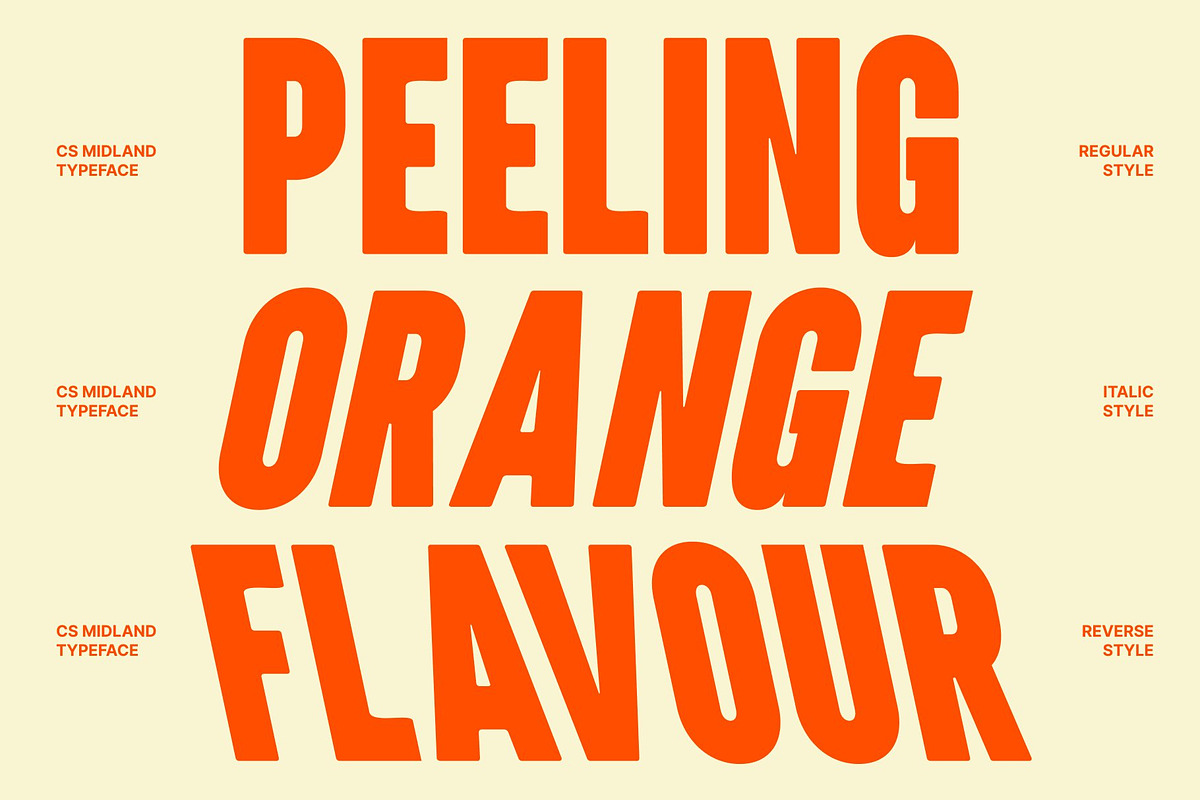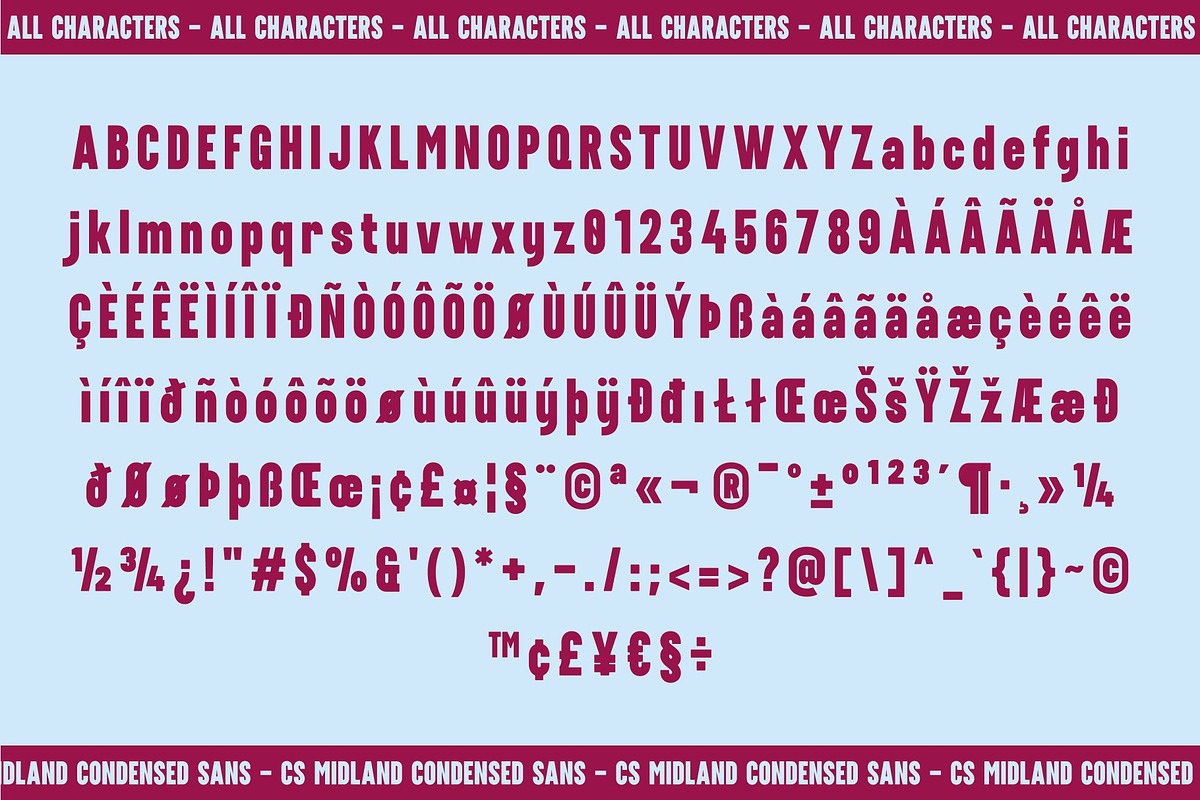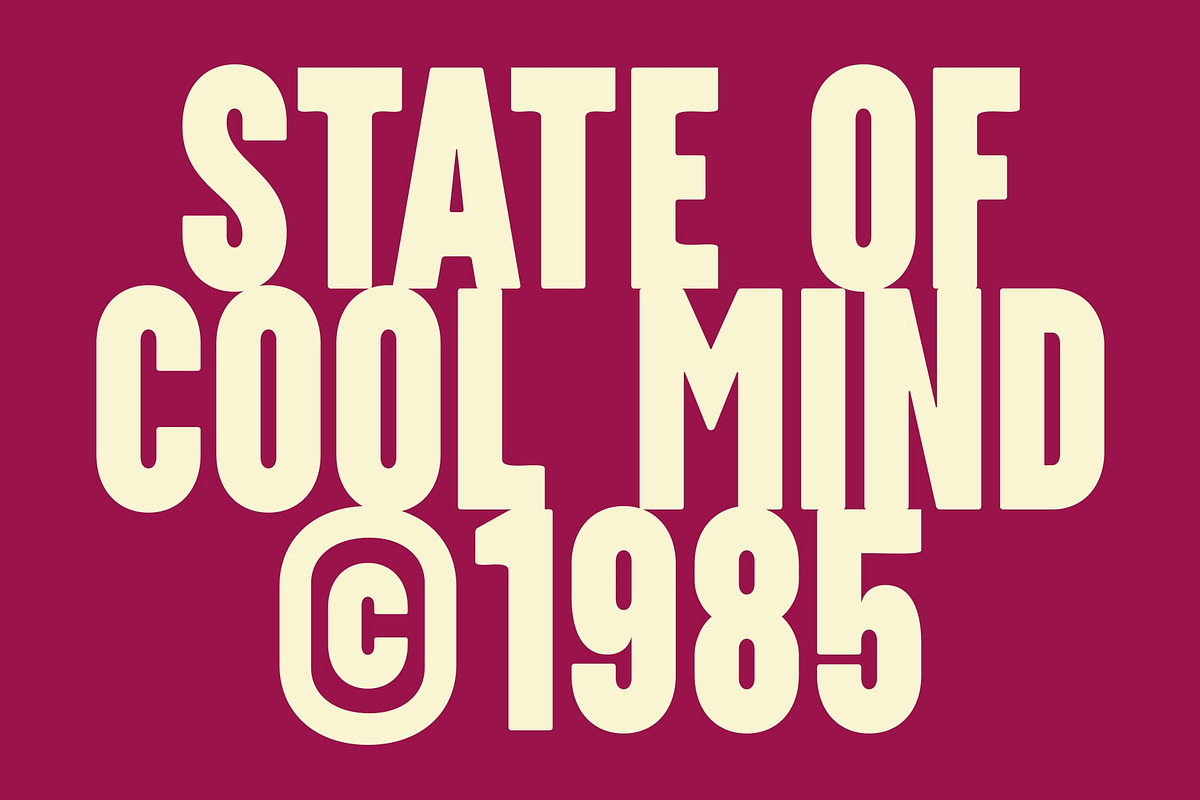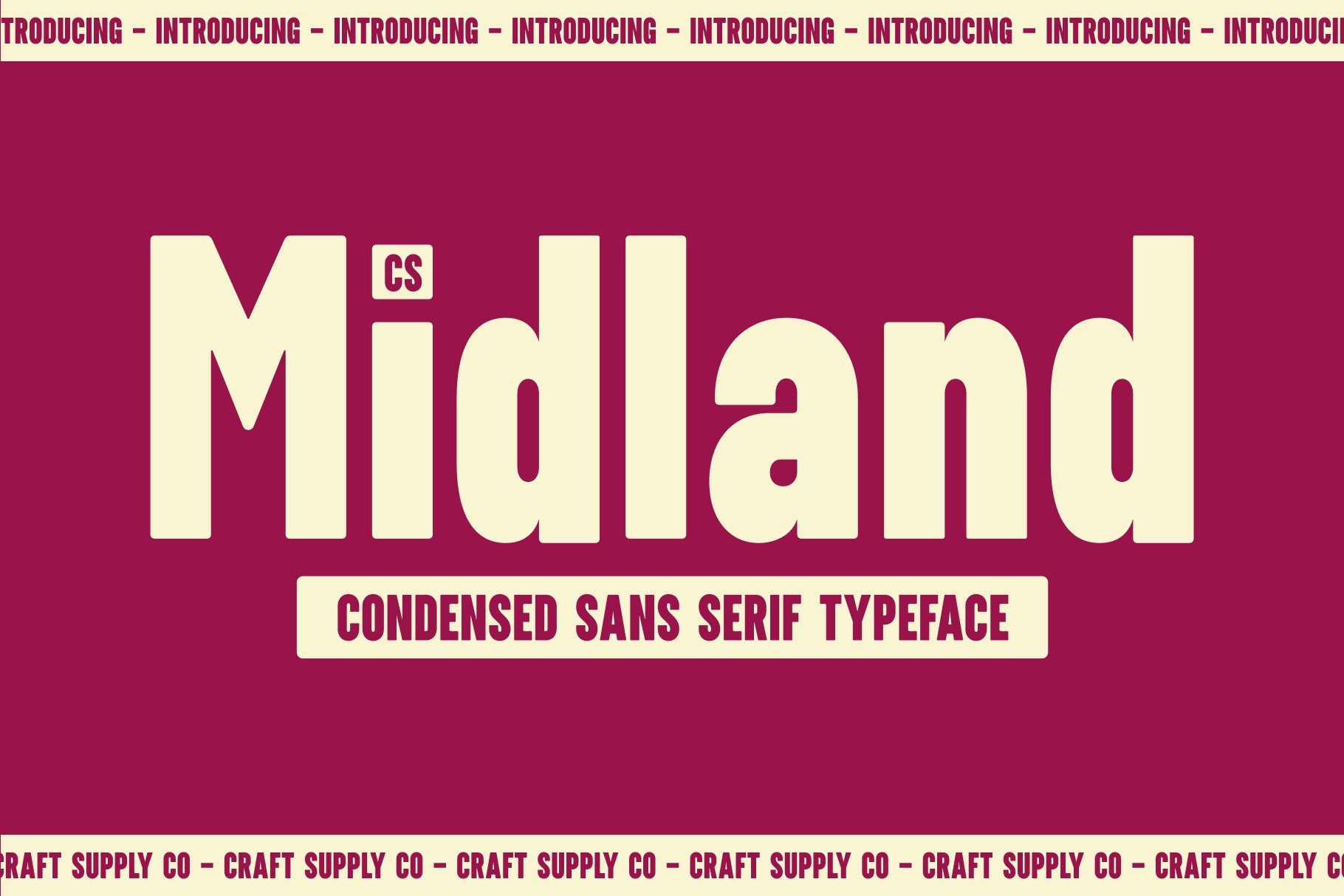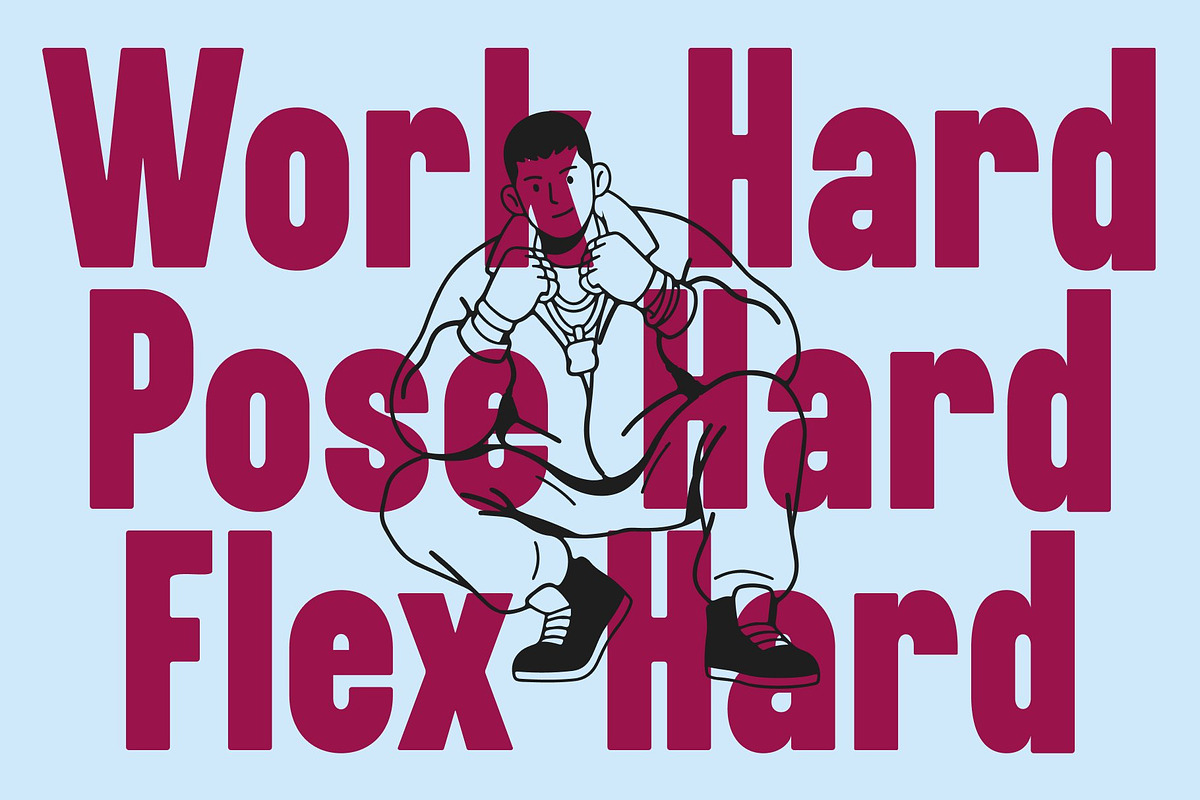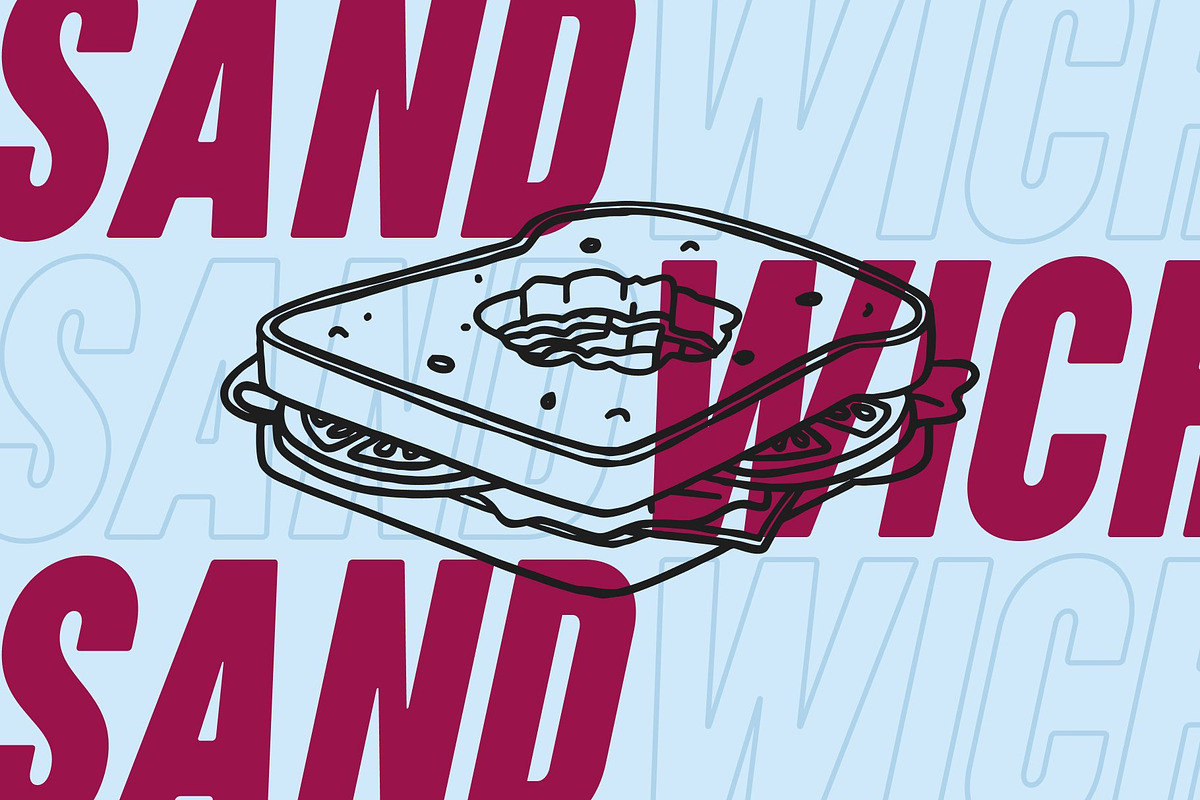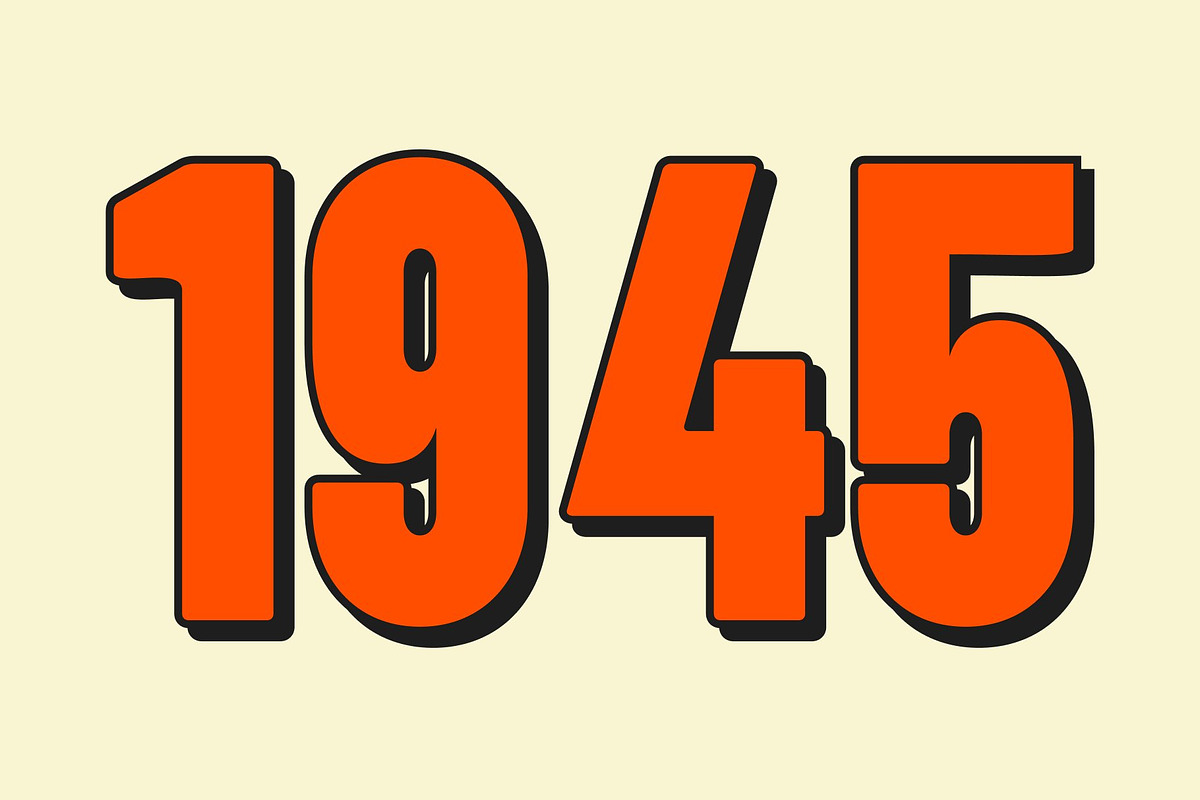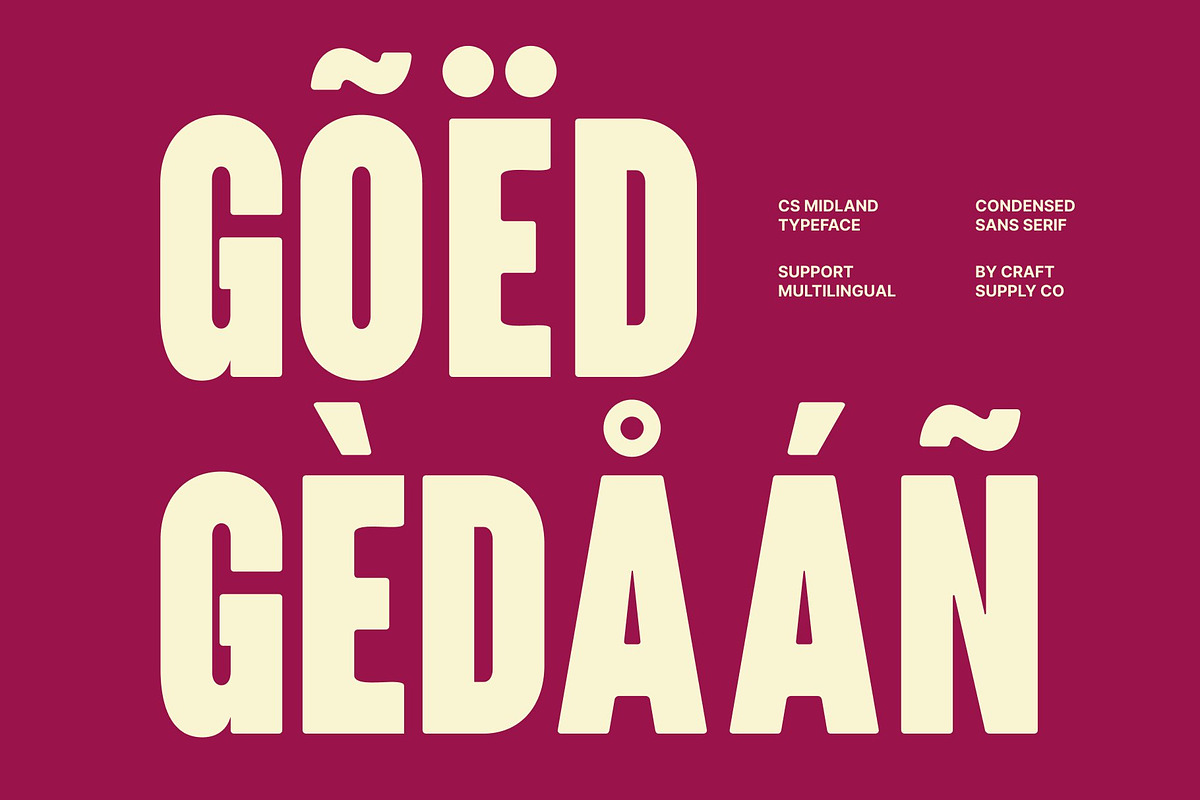
CS Midland – Condensed Font
CS Midland – Condensed Sans Serif Font: Where Bold Efficiency Meets Modern Impact
Compact Proportions with Heavy Modern Structure this is a condensed sans serif font designed to deliver powerful impact in tight spaces. Featuring narrow proportions and heavy stroke weights, it maximizes text size and visual authority without requiring excessive space or multiple lines. Its bold structure creates a confident and commanding appearance that feels modern, clean, and highly attention-grabbing.
Modern Functionality with Strong Readability This font offers a perfect balance between readability and boldness. The carefully crafted letterforms maintain clarity even in dense compositions, making the font highly effective for large headlines, compact layouts, and modern visual systems.
Bold Presence with Editorial Energy The heavy condensed structure gives a sleek and impactful personality ideal for contemporary editorial and promotional design. Its strong vertical rhythm creates a sense of movement, confidence, and professionalism while preserving a clean and organized appearance.
Perfect for Headlines, Posters, and Compact Interfaces This font perfect for high-impact headlines, editorial layouts, poster designs, branding, magazine titles, advertising campaigns, and space-constrained user interfaces. Its condensed forms and bold weight make it ideal for logos, packaging, signage, and modern visual identities that require both efficiency and visual power.
CS Midland Regular
CS Midland Italic
CS Midland Reverse Italic